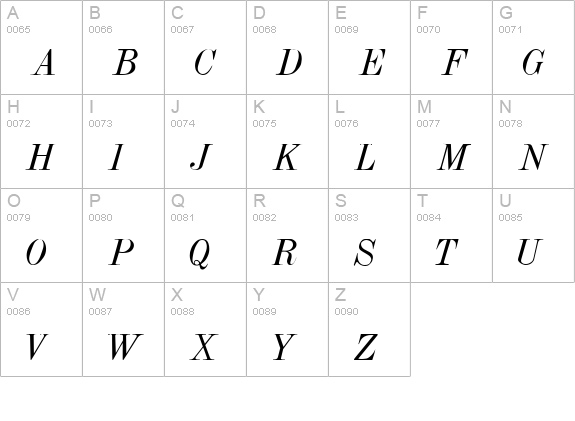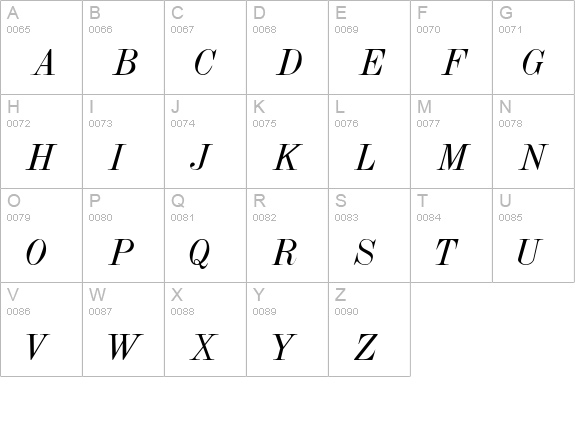
Polar SSi Italic Font Details
Polar SSi Italic is a distinctive, italic variant in the Polar typeface family \xE2\x80\x94 well suited to design and typography projects.
Polar SSi Italic font is a sleek and modern typeface that exudes elegance and sophistication. Its unique italic style adds a touch of flair to any design project, making it perfect for both digital and print applications. The smooth curves and sharp angles of this font create a visually striking appearance that is sure to captivate your audience. And the best part? Polar SSi Italic font is completely free to download at FontsMarket.com! Whether you're working on a personal project or a professional assignment, this font is a versatile choice that will elevate your work to the next level. With its clean lines and contemporary look, Polar SSi Italic font is a must-have addition to any designer's toolkit. Download it today and start creating stunning designs with ease!